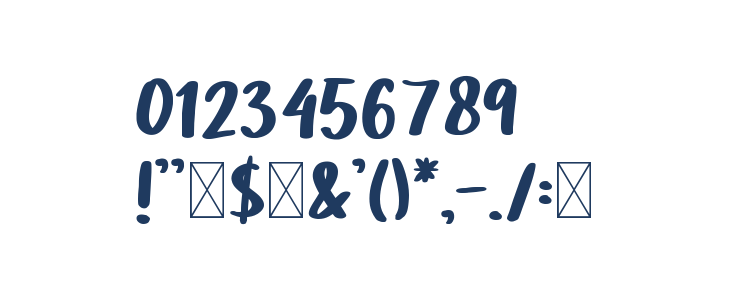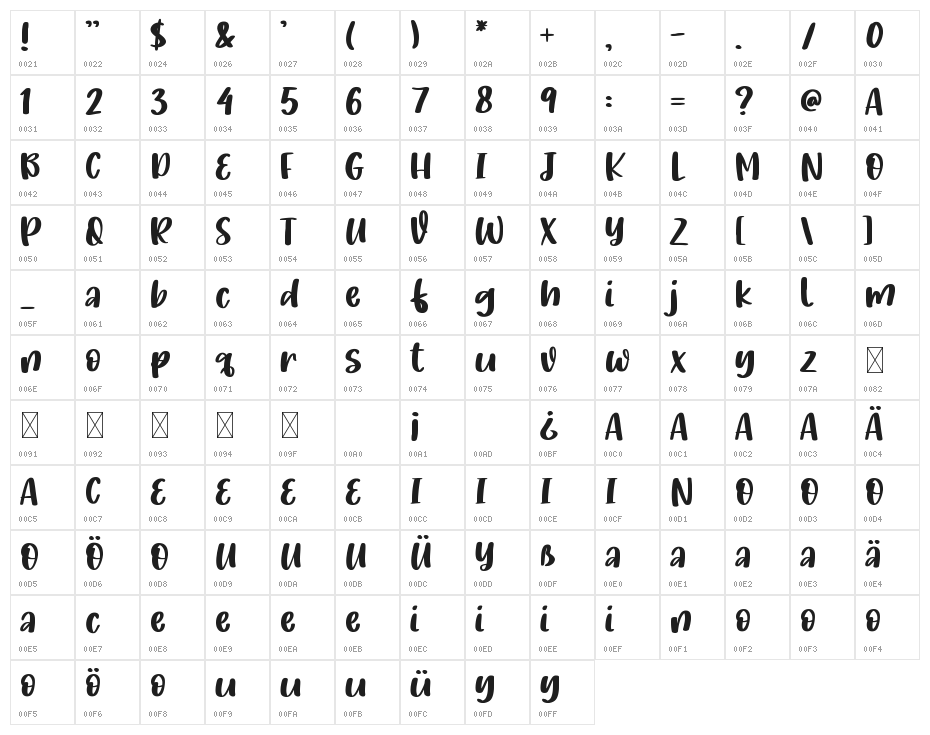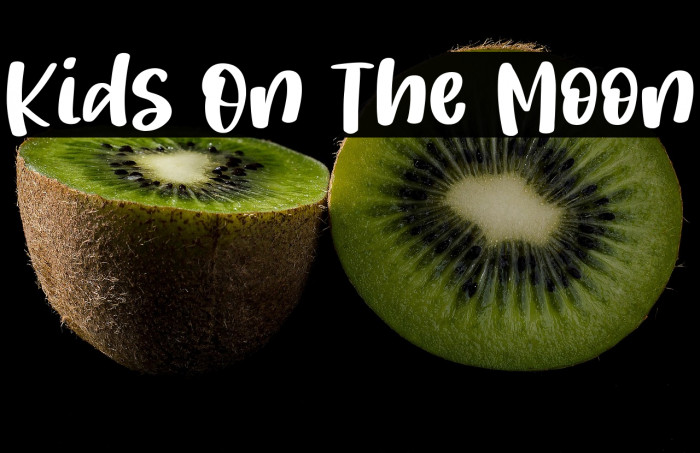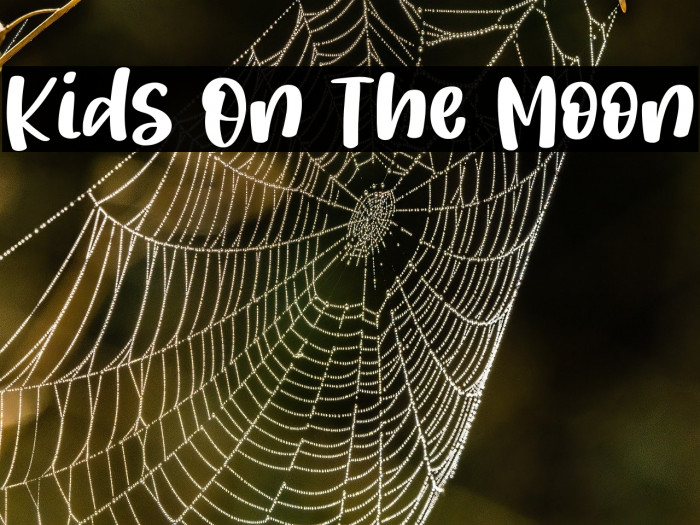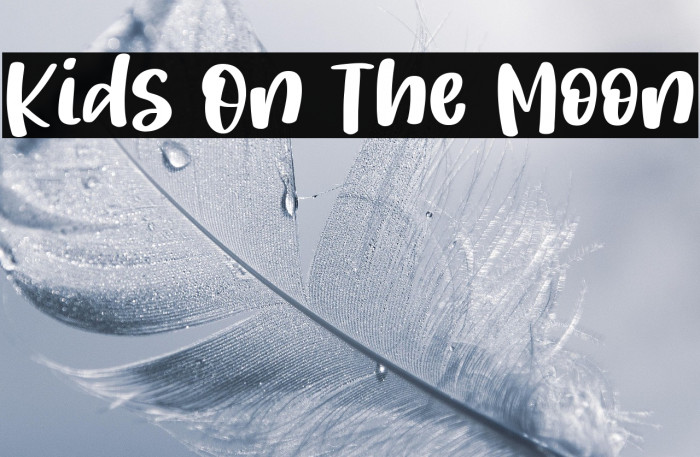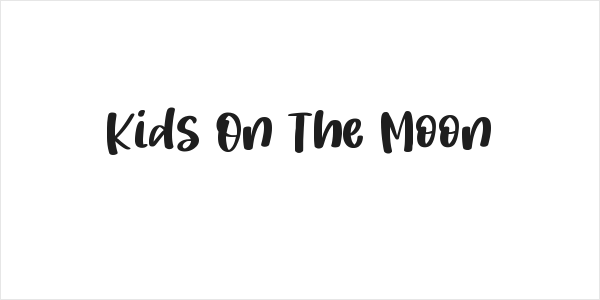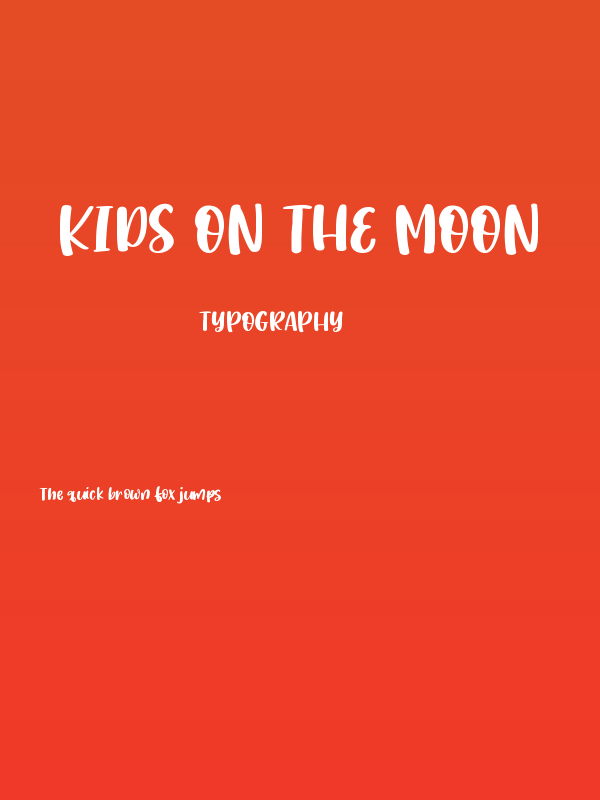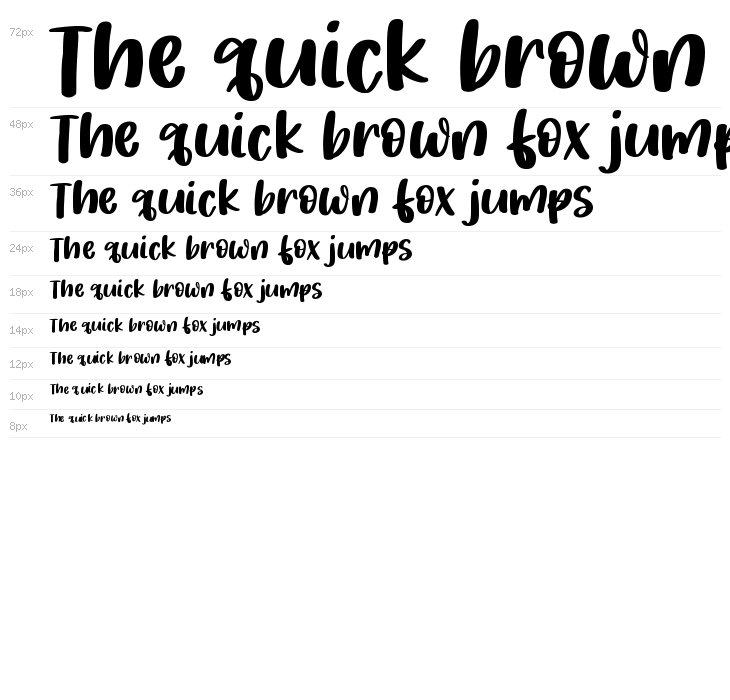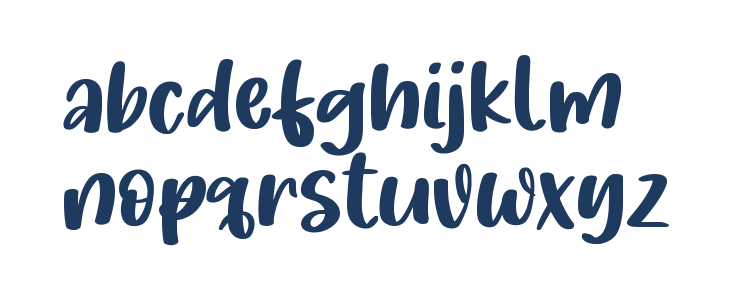
Kids On The Moon Font
Kids On The Moon Description
This playful and whimsical font features bold, rounded characters with a hand-drawn aesthetic. The letters have a smooth, flowing style that gives them a lively and energetic appearance. The uppercase and lowercase letters maintain a consistent thickness, creating a harmonious look. The numbers and special characters are equally dynamic, adding to the font's overall charm. This font is ideal for projects that require a fun and informal touch, such as children's books, playful branding, or creative posters. Its unique style makes it stand out, while the clear legibility ensures it remains functional.
| Proposed Projects | Children's books, playful branding, creative posters, informal invitations. |